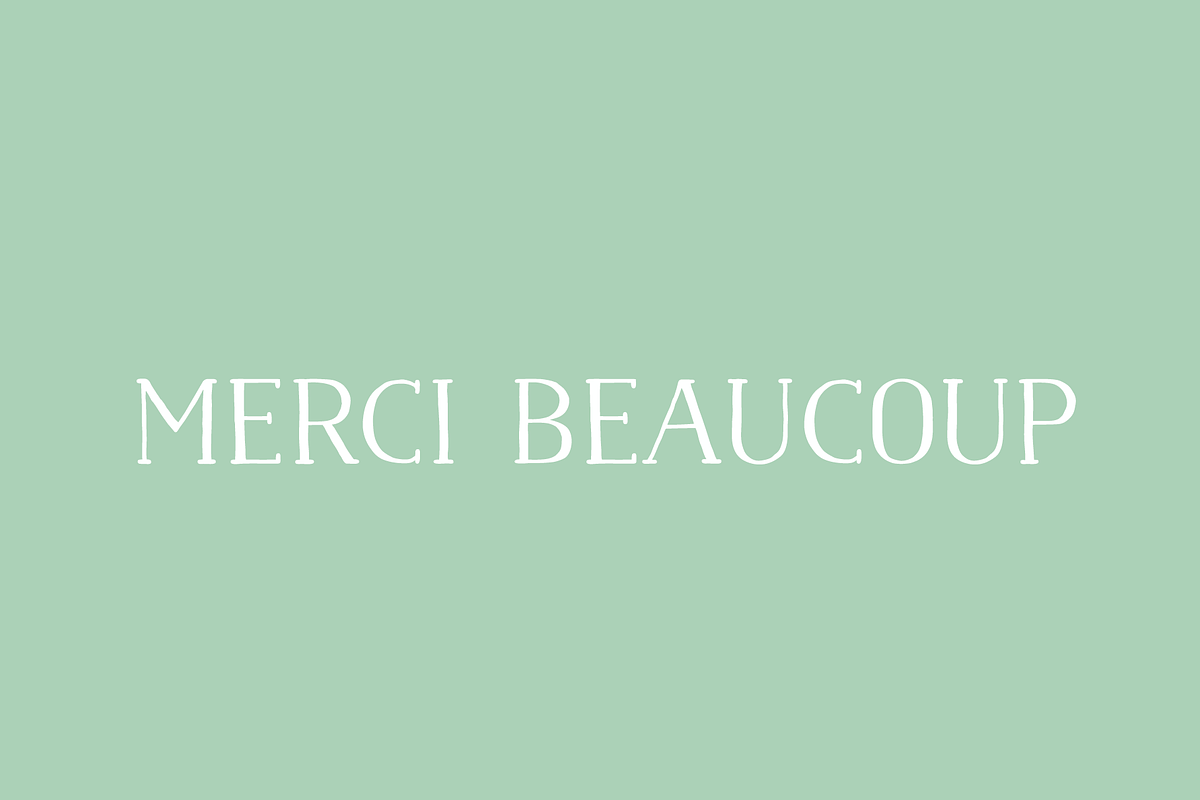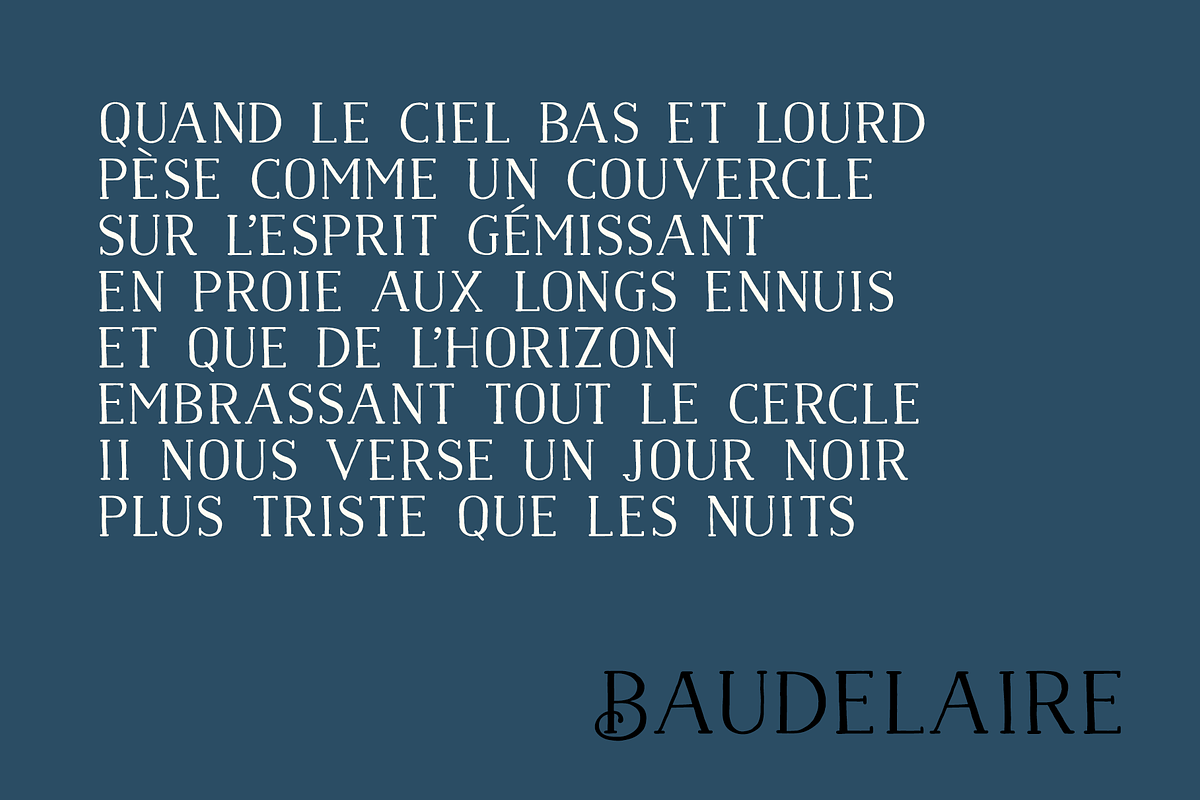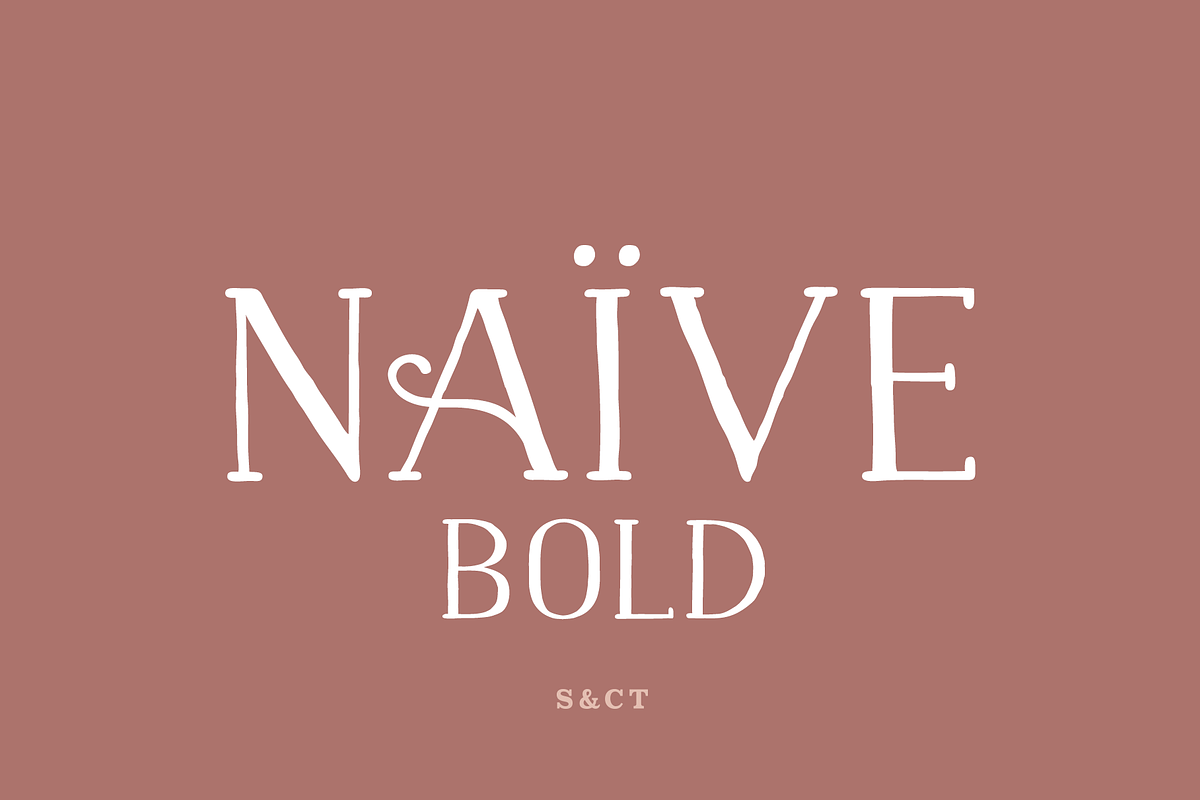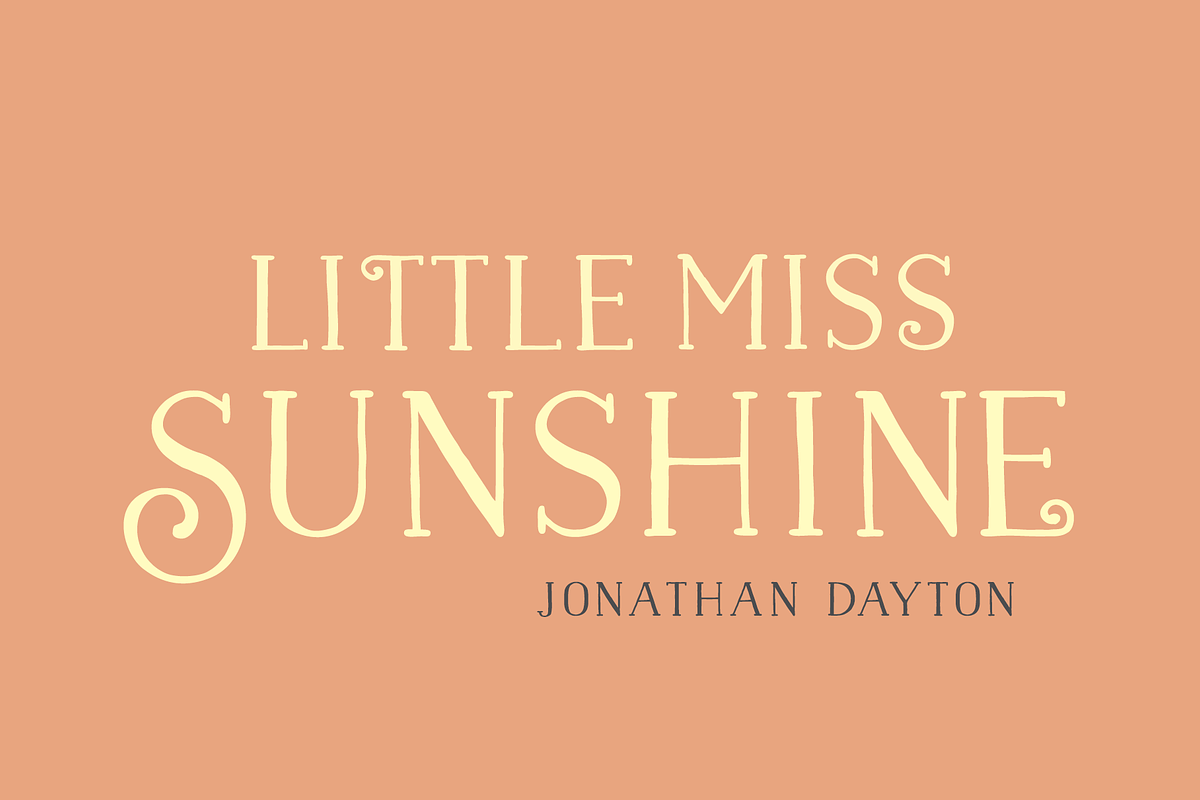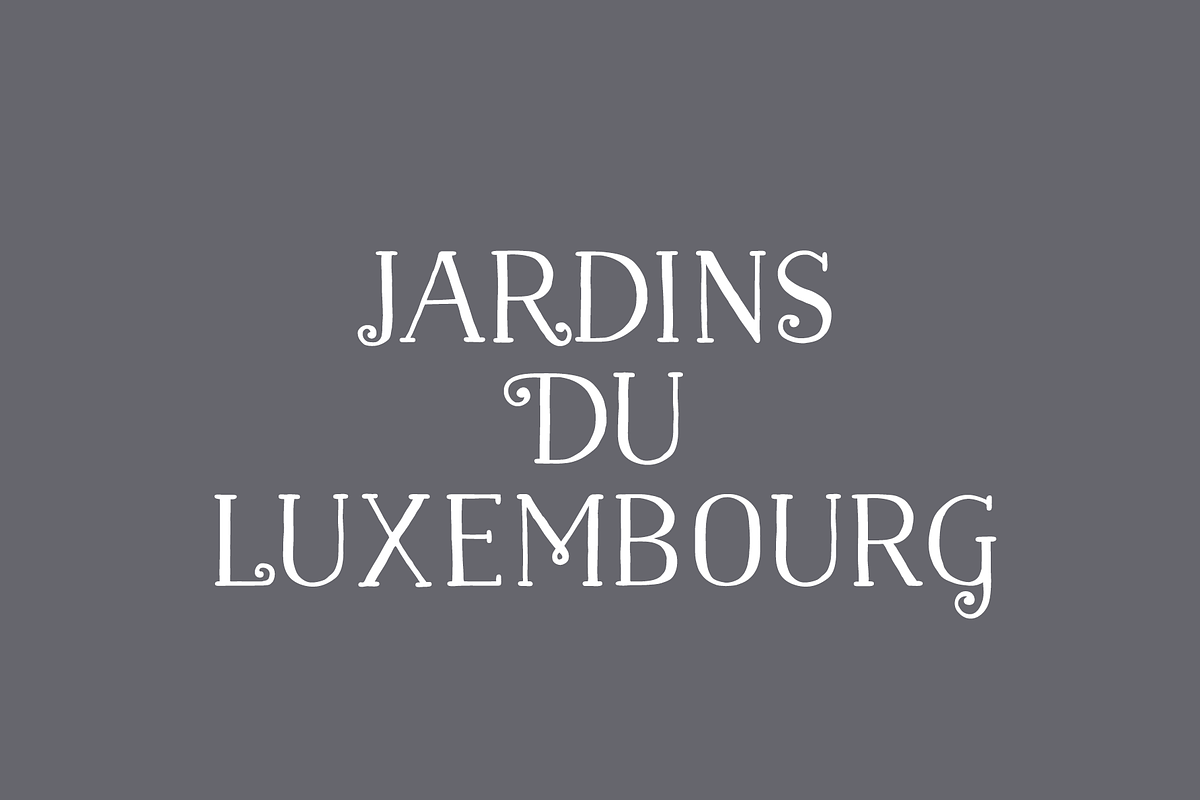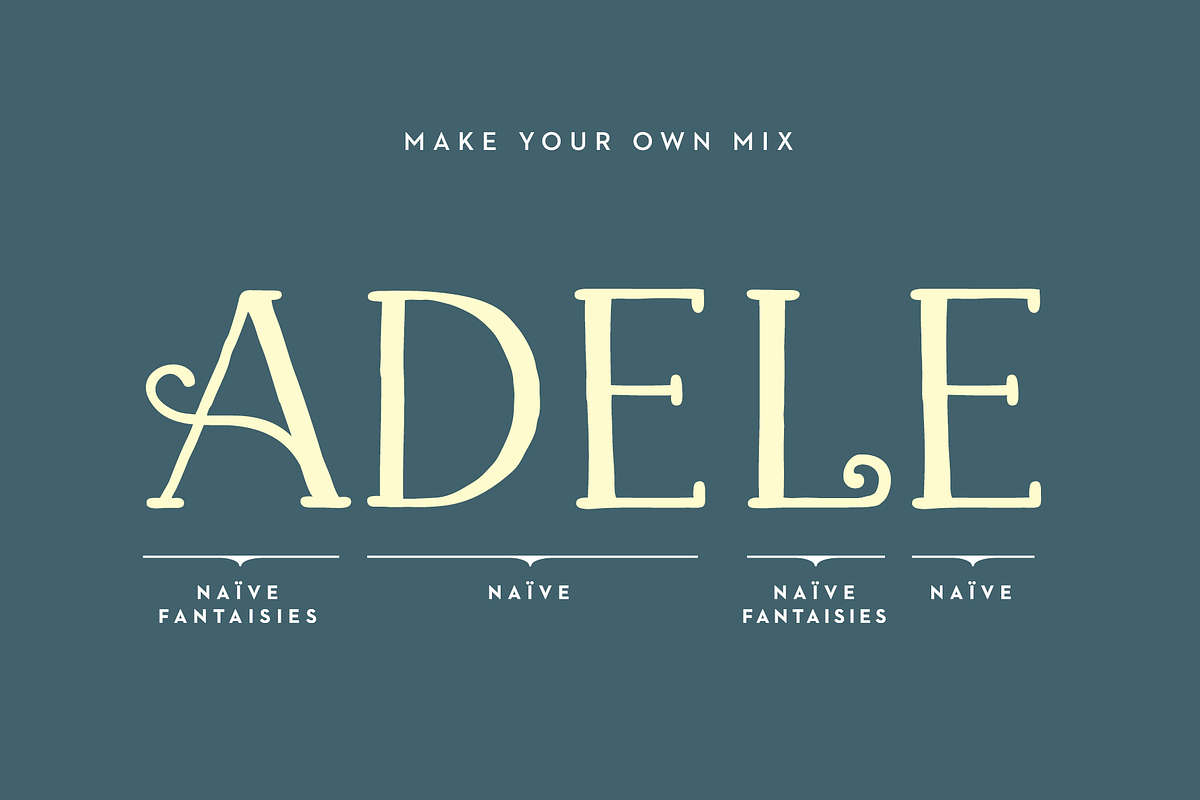
Naive Bold & Fantaisies
Naïve Bold is a serif handwritten font designed by Fanny Coulez and Julien Saurin in Paris. Our goal was to draw a font with finely irregular lines that give a human and whimsical feeling.